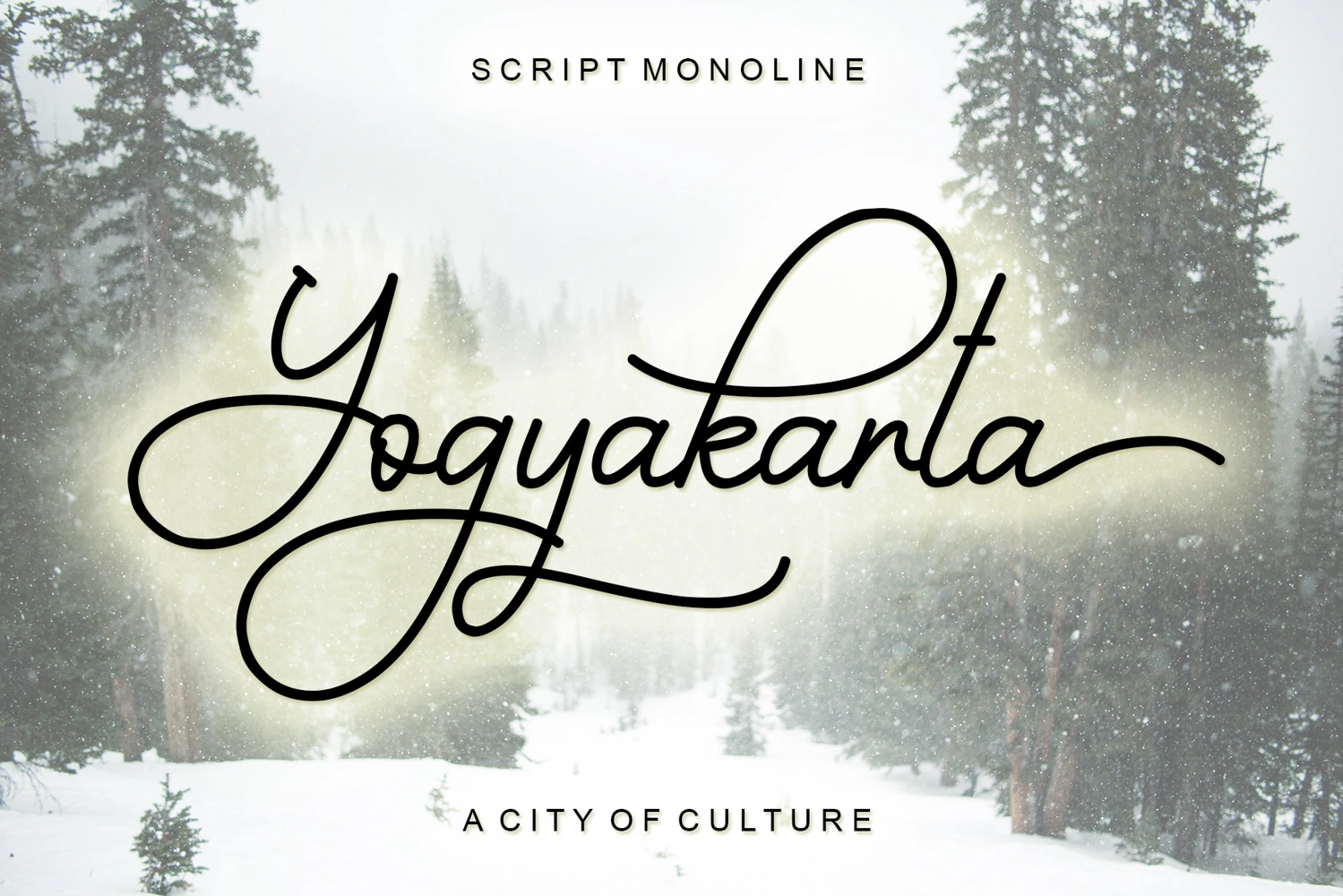
Beautiful Handwritten
YOGYAKARTA
Yogyakarta font is a modern script monoline by Letterafa Studio. It has flowing letters that will give your designs a unique and sweet look. Yogyakarta font is perfect; logos, greeting cards, a package design, a brand identity, craft design, any DIY project, book title, wedding invitation, packaging, and more.